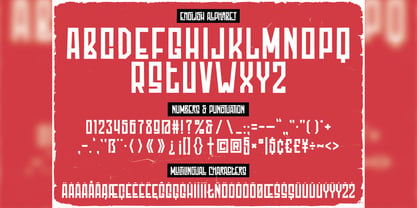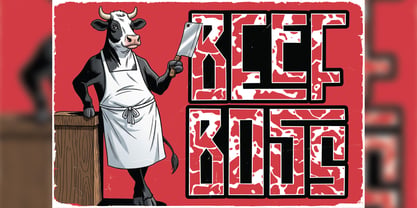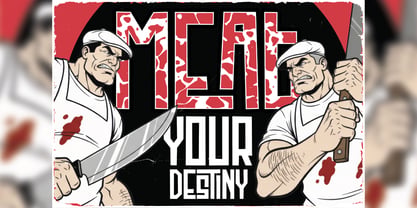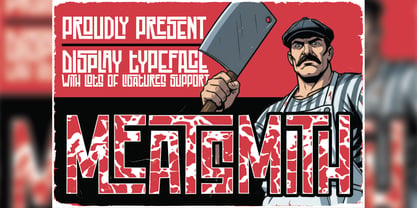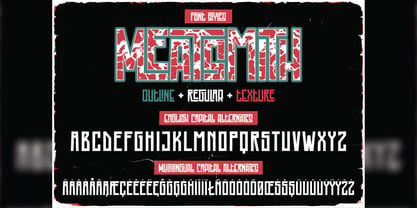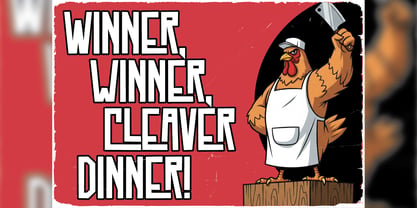
Meat Smith
by Vozzy
The Meat Smith Font Family was designed by Oleg Voznyy and published by Vozzy. Meat Smith contains 3 styles and family package options. More about this family
Introducing the striking font "Meat Smith," designed specifically for headlines, accent inscriptions, and capturing attention. This unique typeface features a wide array of additional characters, punctuation marks, and multilingual options, ensuring versatility for various design needs. With an extensive selection of standard ligatures, it enhances the visual appeal of your text (ensure your software supports this OpenType feature). "Meat Smith" is perfect for branding, web design, and editorial projects, making it an excellent choice for your creative endeavors!
Designers: Oleg Voznyy
Foundry: Vozzy